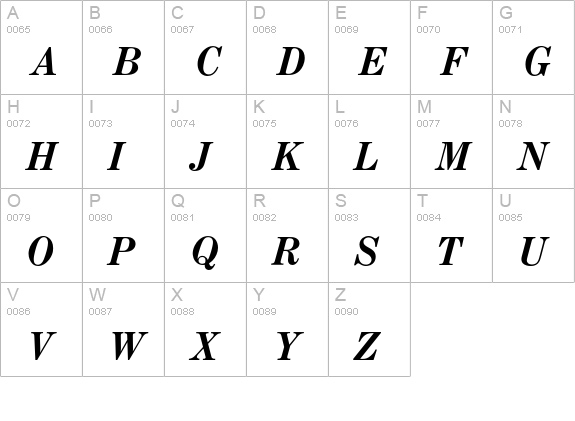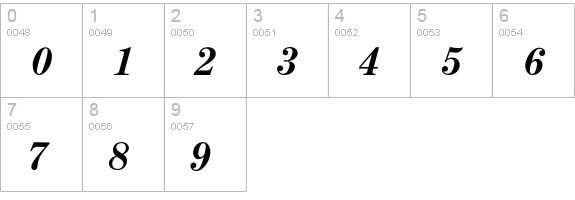
Century ATF Bold Italic Font Details
Century ATF Bold Italic is a strong, high-contrast, italic variant in the Century typeface family \xE2\x80\x94 well suited to headlines, attention-grabbing titles, and strong calls-to-action.
Century ATF Bold Italic is a striking and modern font that effortlessly combines boldness with elegance. The italicized slant adds a touch of sophistication to the already commanding presence of the bold weight. This font is perfect for creating eye-catching headlines, logos, and branding materials that demand attention. What makes Century ATF Bold Italic even more appealing is that it is available for free download at FontsMarket.com. This means you can easily access this high-quality font without any cost, making it a valuable addition to your design toolkit. Whether you're a professional designer looking for a versatile typeface or a hobbyist seeking to enhance your creative projects, Century ATF Bold Italic is a fantastic choice that won't break the bank. Download it today and elevate your designs with this beautiful and impactful font.